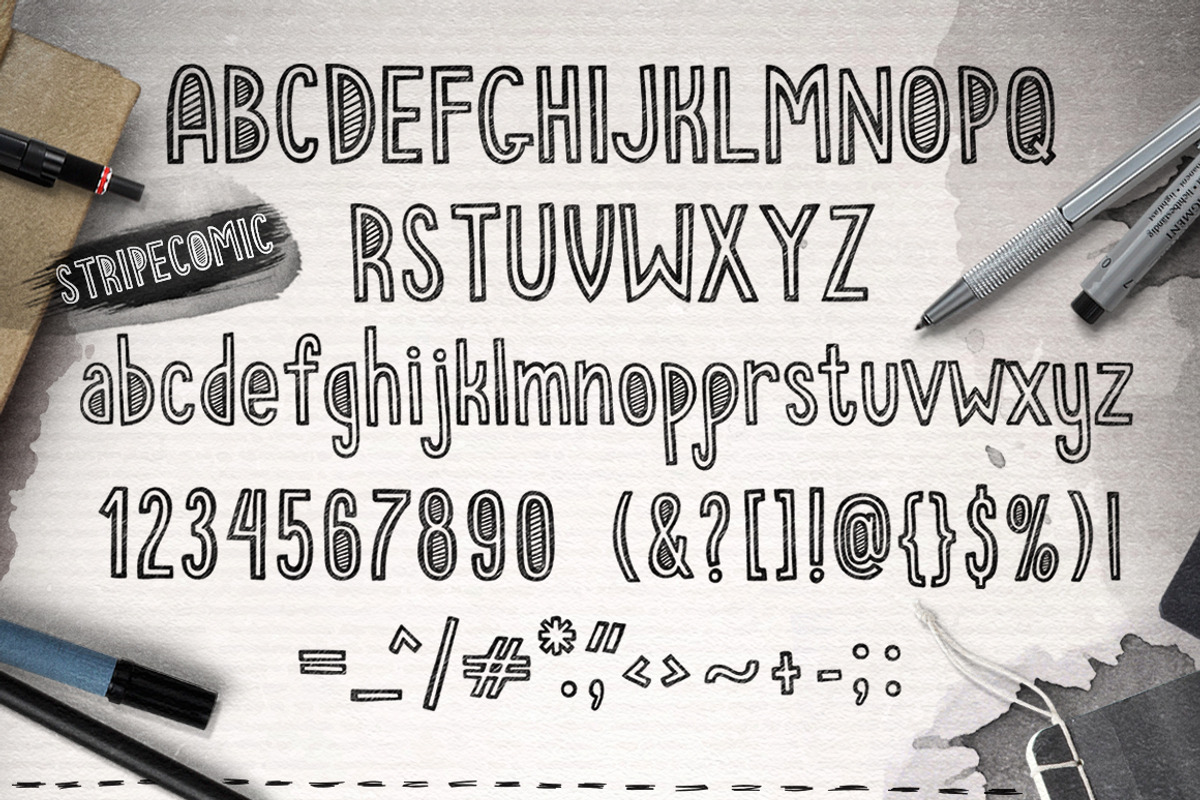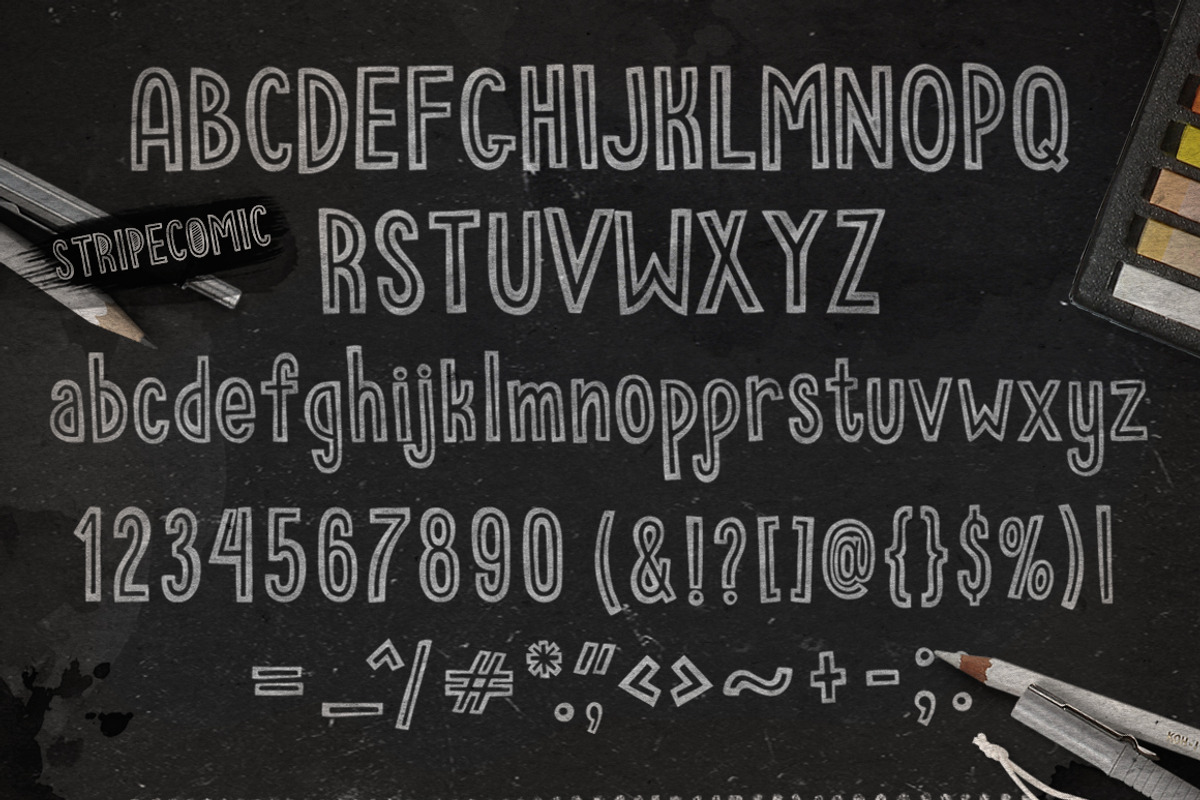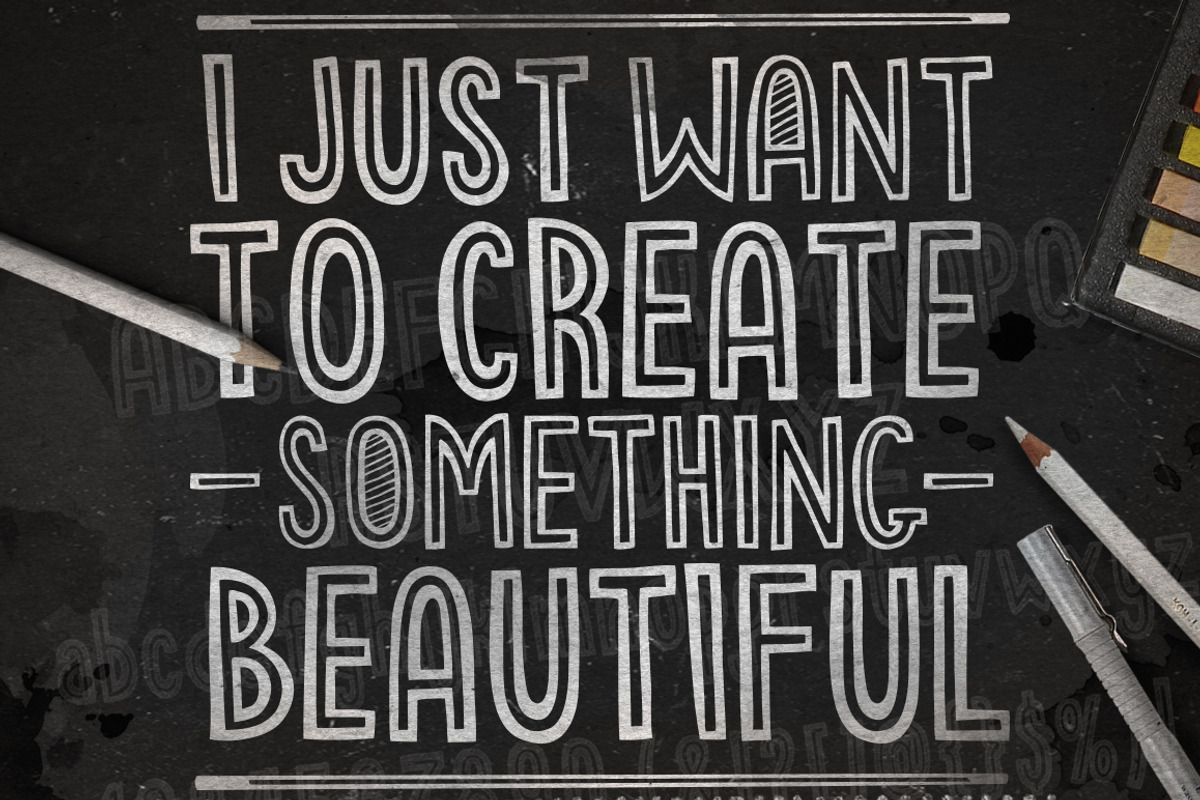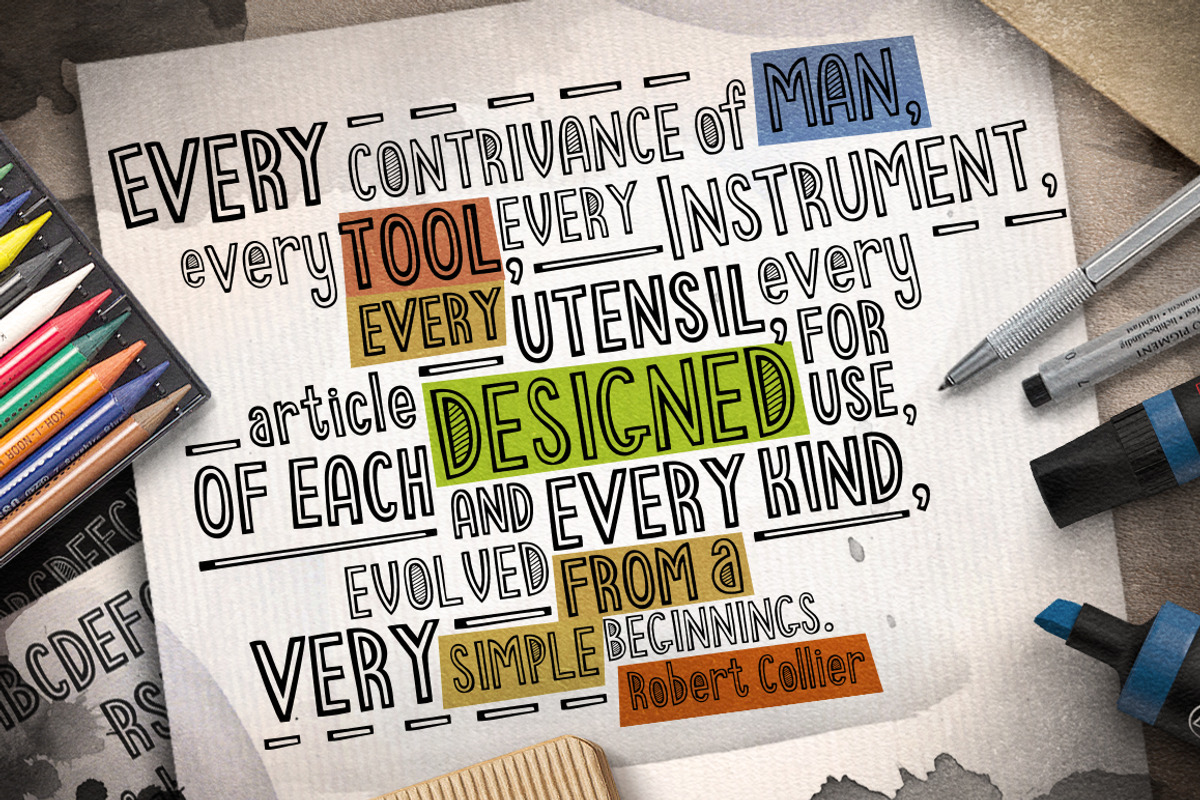
Stripecomic Typeface
Stripecomic Typeface by BALABOLKA is a font selected for branding, posters, packaging, typography.
Why Stripecomic Typeface is worth a look
Stripecomic Typeface by BALABOLKA fits naturally into Branding, posters, packaging, typography.